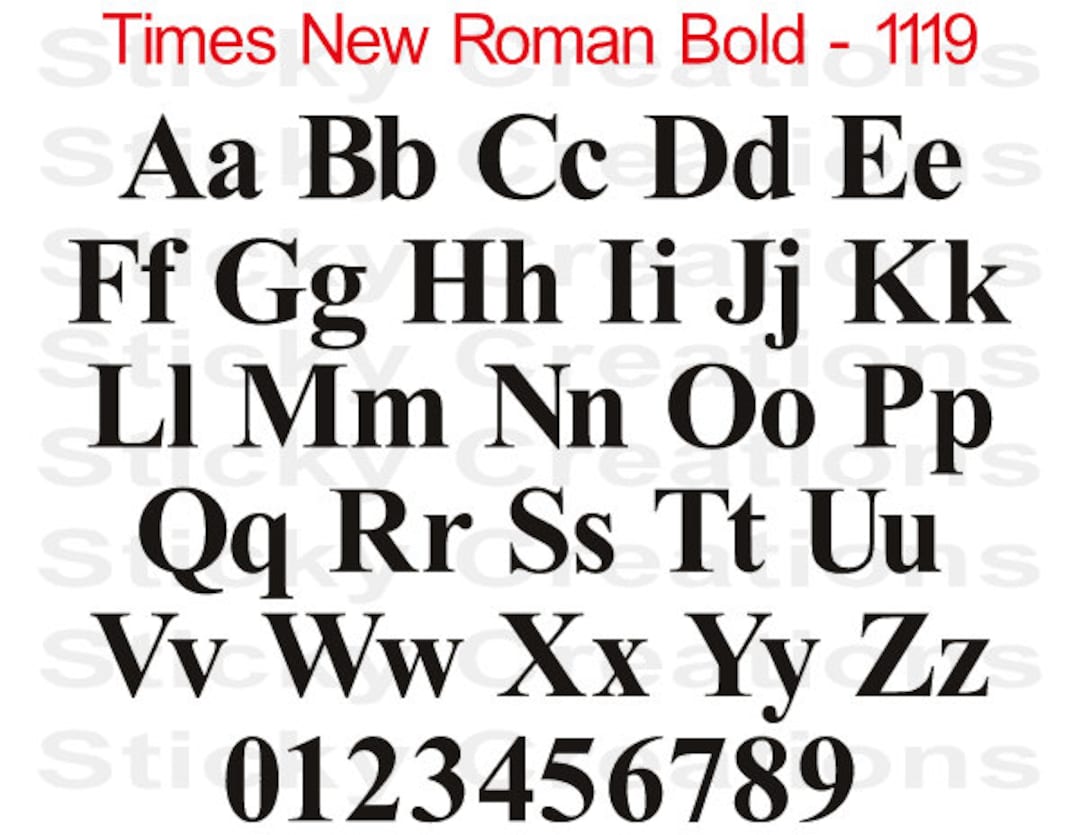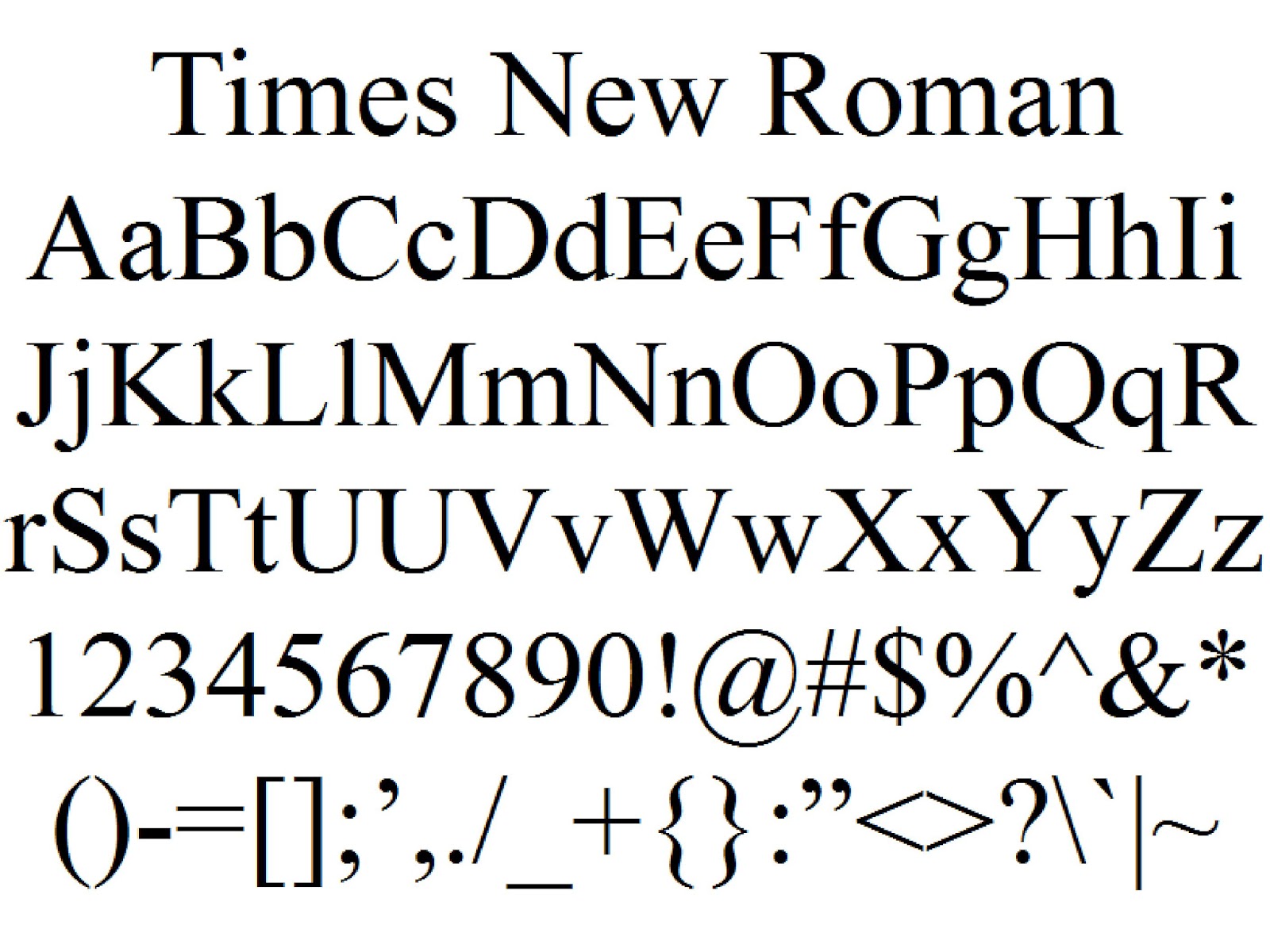
Times Roman Bold Font
Times Roman Bold Font - It has a traditional and formal appearance, characterized by its high contrast. Experience the timeless elegance of our free bold times new roman fonts. Tinos was designed by steve matteson as an innovative, refreshing serif design that is.
Tinos was designed by steve matteson as an innovative, refreshing serif design that is. It has a traditional and formal appearance, characterized by its high contrast. Experience the timeless elegance of our free bold times new roman fonts.
It has a traditional and formal appearance, characterized by its high contrast. Tinos was designed by steve matteson as an innovative, refreshing serif design that is. Experience the timeless elegance of our free bold times new roman fonts.
Tinos was designed by steve matteson as an innovative, refreshing serif design that is. It has a traditional and formal appearance, characterized by its high contrast. Experience the timeless elegance of our free bold times new roman fonts.
It has a traditional and formal appearance, characterized by its high contrast. Tinos was designed by steve matteson as an innovative, refreshing serif design that is. Experience the timeless elegance of our free bold times new roman fonts.
Experience the timeless elegance of our free bold times new roman fonts. It has a traditional and formal appearance, characterized by its high contrast. Tinos was designed by steve matteson as an innovative, refreshing serif design that is.
Tinos was designed by steve matteson as an innovative, refreshing serif design that is. Experience the timeless elegance of our free bold times new roman fonts. It has a traditional and formal appearance, characterized by its high contrast.
Experience the timeless elegance of our free bold times new roman fonts. It has a traditional and formal appearance, characterized by its high contrast. Tinos was designed by steve matteson as an innovative, refreshing serif design that is.
It has a traditional and formal appearance, characterized by its high contrast. Experience the timeless elegance of our free bold times new roman fonts. Tinos was designed by steve matteson as an innovative, refreshing serif design that is.
Tinos Was Designed By Steve Matteson As An Innovative, Refreshing Serif Design That Is.
Experience the timeless elegance of our free bold times new roman fonts. It has a traditional and formal appearance, characterized by its high contrast.